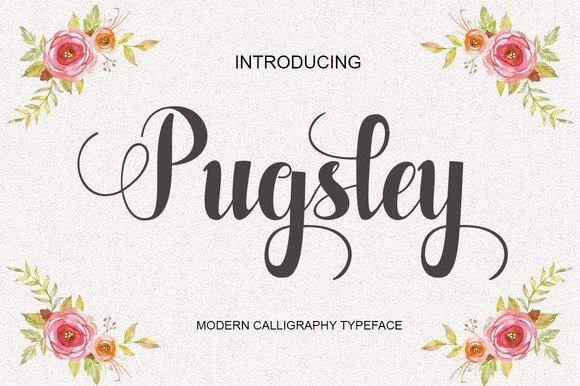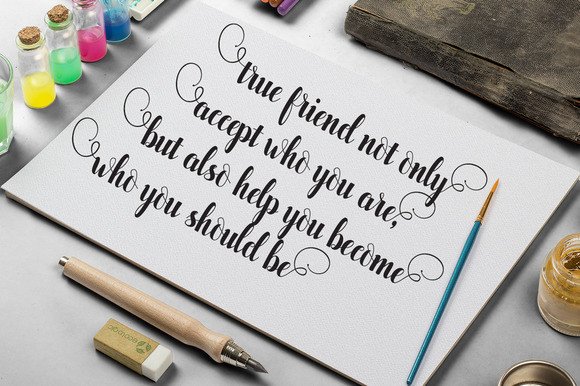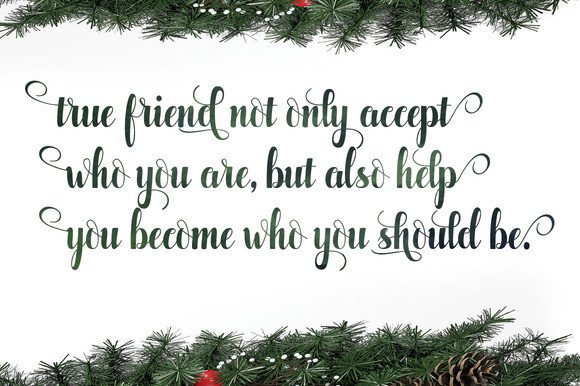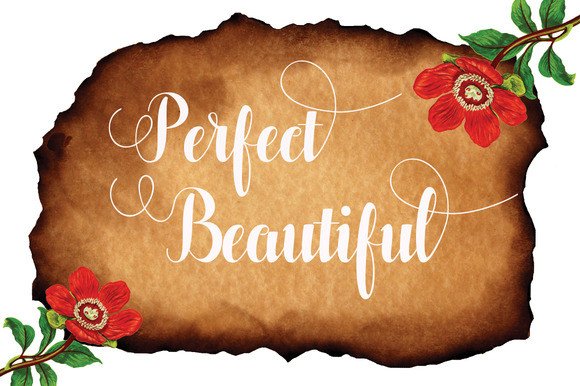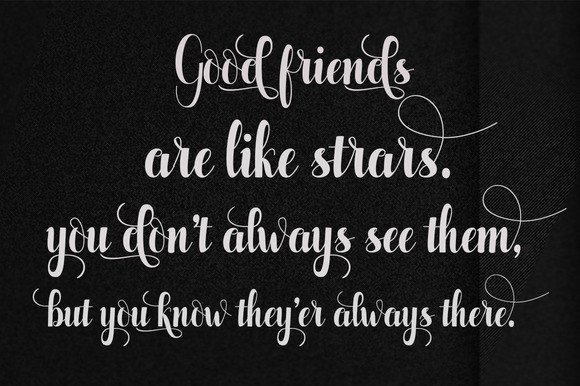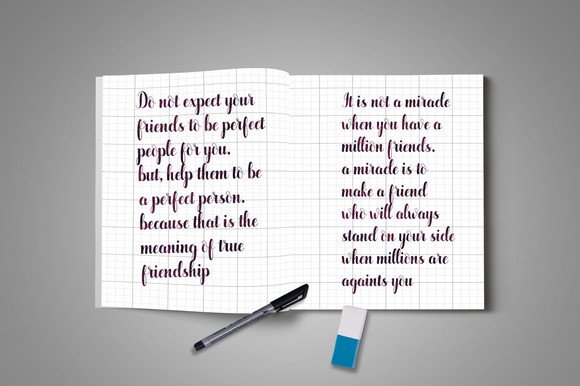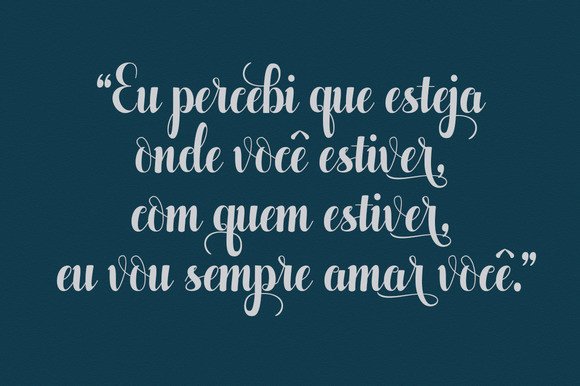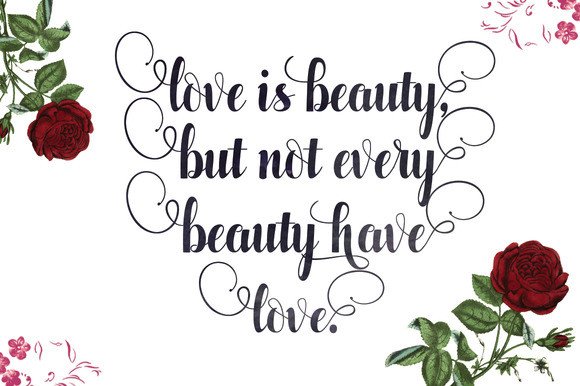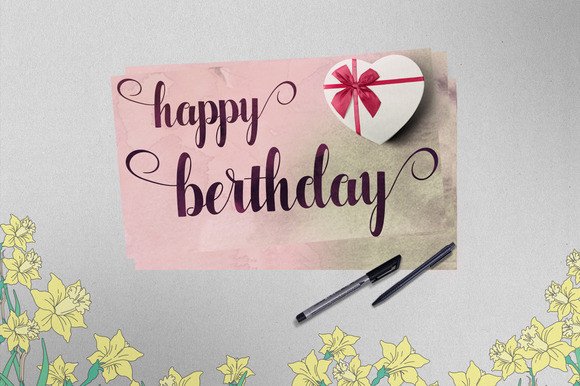
Pugsley Font
About Pugsley Font
Pugsley is a beautiful handwritten font. Pugsley was crafted manually. Every letter has been painted on paper, scanned, digitized, and later on optimized.
The result is an elegant fancy font with 427 unique glyphs. The writing style is kept very natural which makes it a pleasant font to read.
Pugsley is packed with features:
Unique Style
Pugsley Handwritten has a very unique written style. The upright letters create a smooth measured rhythm. The start and end swashes give it an optimistic and playful feeling. The style of Pugsley is unique in the way that it strikes a perfect balance between personal and business. You can use it to make personal projects such as signs but also it is serious enough to create business designs.
Because of the many alternates, you can keep using the Pugsley font over and over again and still come up with unique designs.